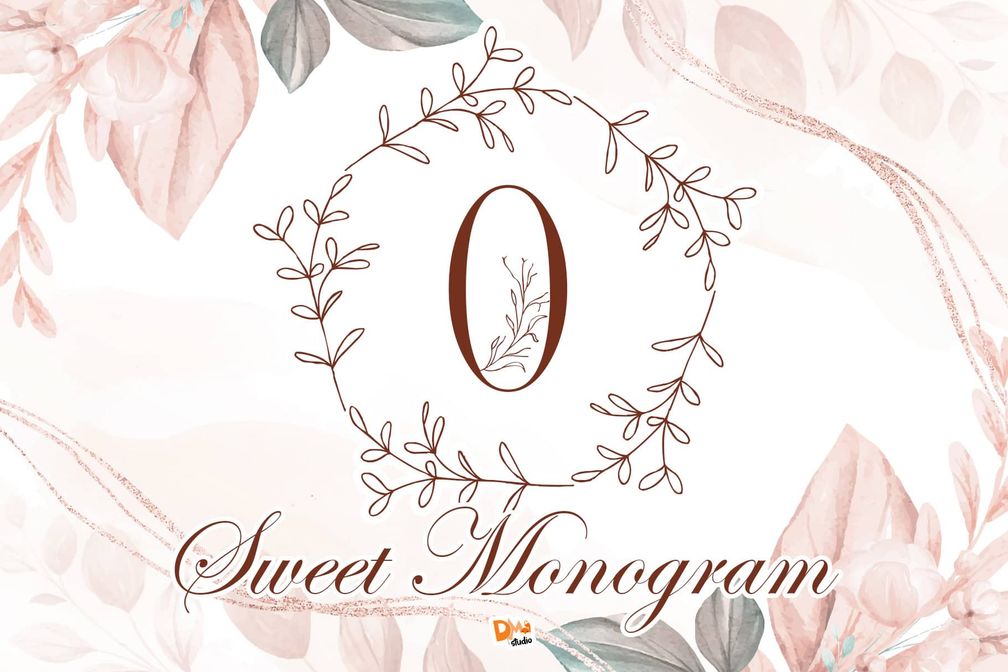
Sweet Monogram Font
Sweet Monogram Font is a delicate and charming typeface designed to add a touch of elegance and personalization to your projects. Perfect for monogram designs, wedding stationery, personalized gifts, and branding, this font brings a sweet and sophisticated touch to your creations.
• Delicate and Charming Design: Adds a touch of elegance and sophistication to your text.
• Versatile Application: Ideal for monogram designs, wedding stationery, personalized gifts, and more.